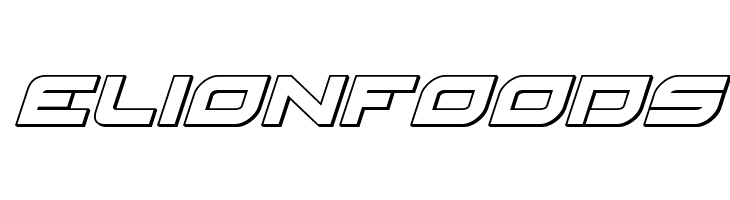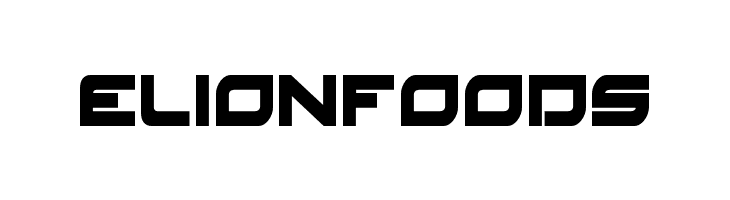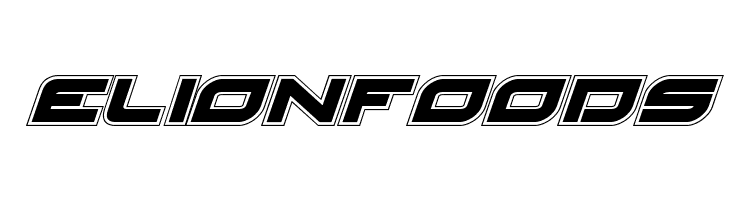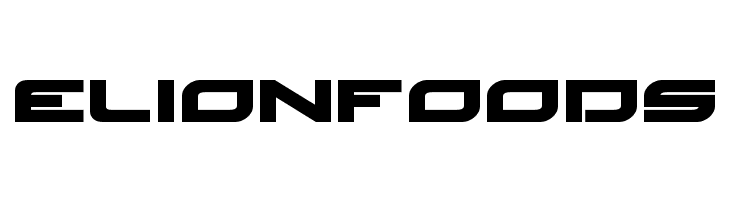
• Red Rocket Outline Italic
A modern, italicized outline font with a futuristic style.
• Red Rocket Condensed
A bold, geometric, and futuristic condensed font with sharp angles.
• Red Rocket Academy Italic
A bold, italicized font with a futuristic, geometric design.
• Red Rocket Expanded
A bold, futuristic font with geometric shapes and a tech-inspired design.
• Red Rocket Condensed Italic
A dynamic, condensed italic font with a futuristic and bold style.
• Red Rocket Expanded Italic
A bold, expanded, and italicized font with a futuristic and dynamic style.
• Red Rocket 3D Italic
A bold, italic, 3D-effect font with angular lines and a futuristic style.